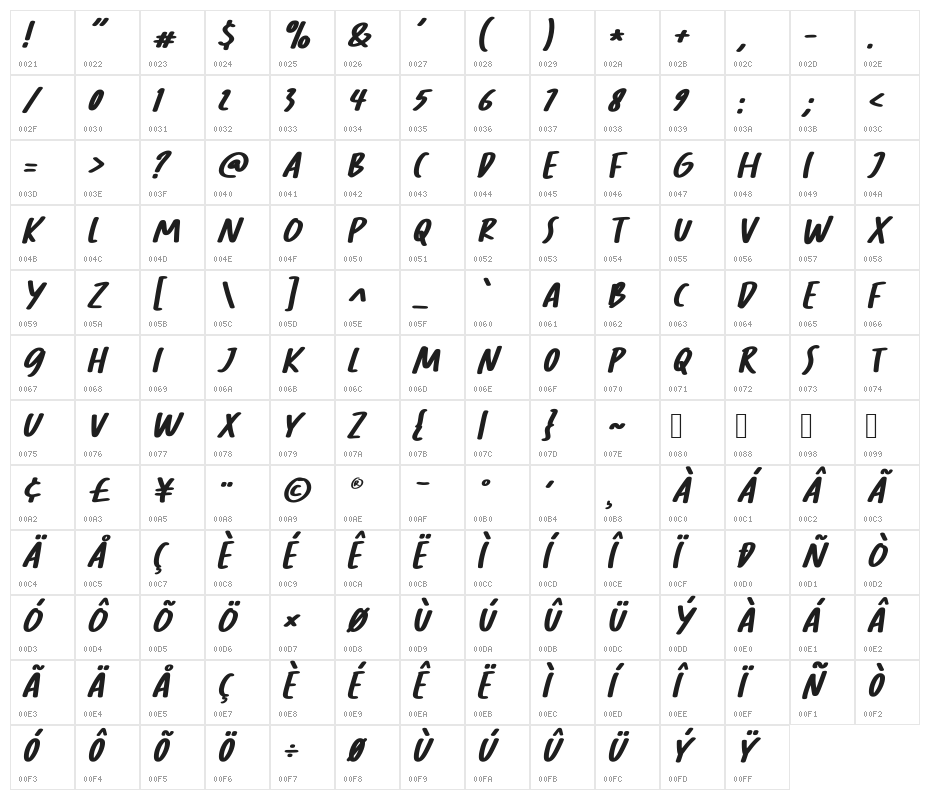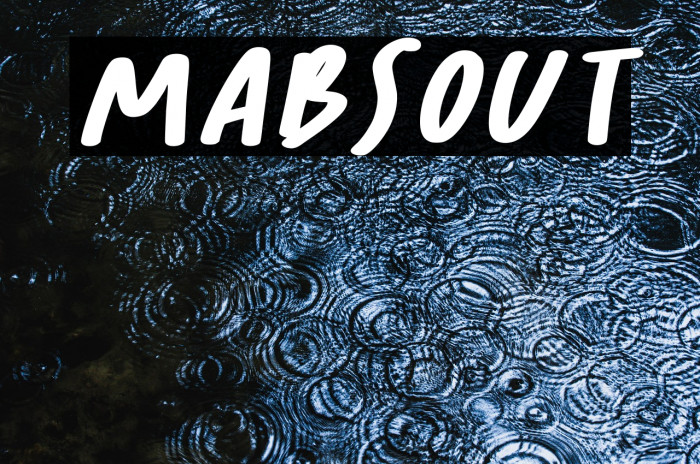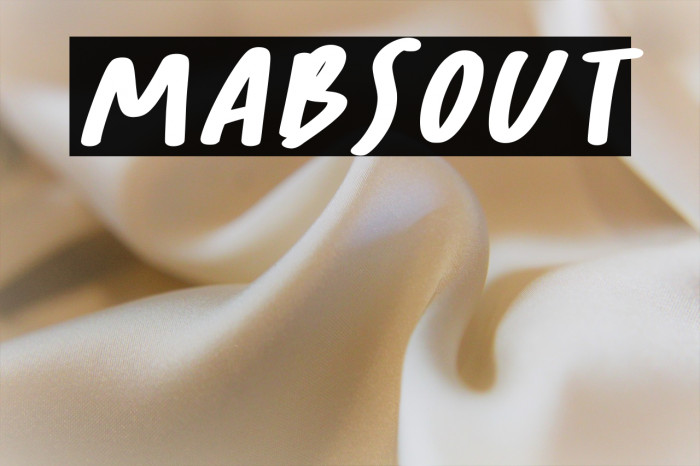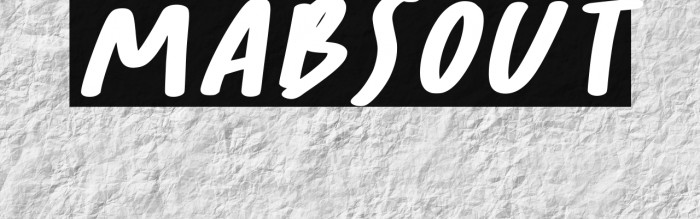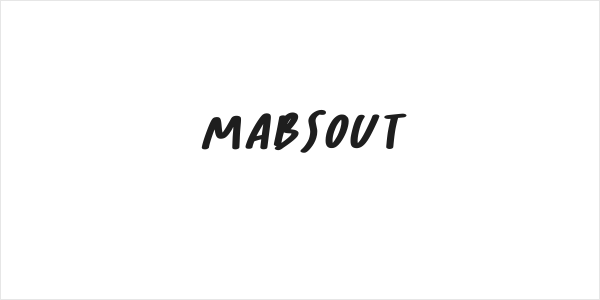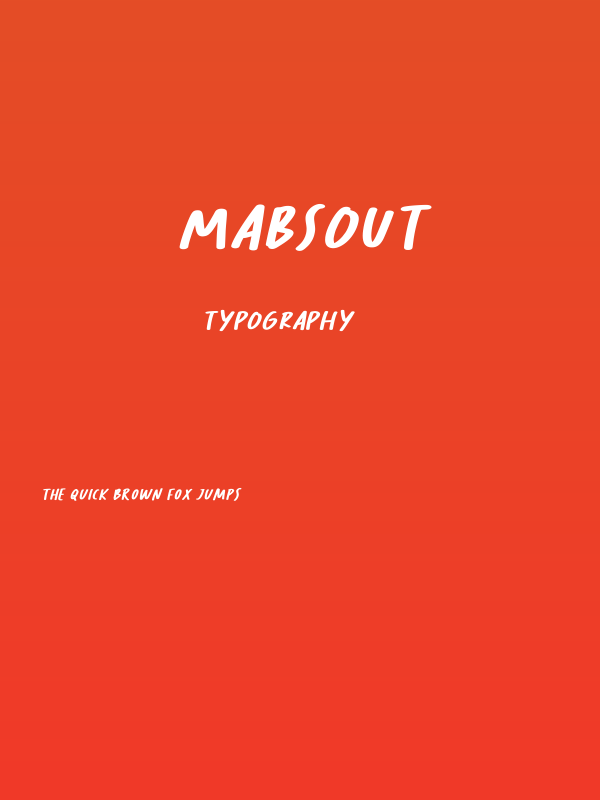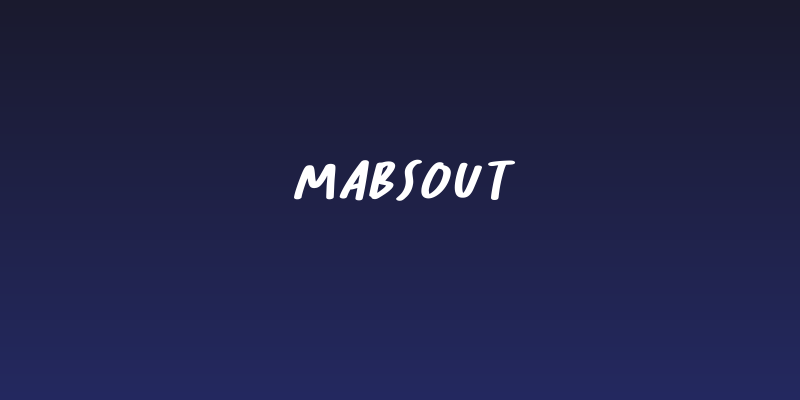
Mabsout Font
Mabsout Description
This font exudes a lively and dynamic energy, characterized by its bold and flowing script style. The letters are crafted with a smooth, continuous stroke that mimics the fluidity of handwriting. Each character is slightly slanted, adding a sense of motion and informality. The uppercase and lowercase letters maintain a consistent style, with rounded edges and a playful appearance. The numbers and special characters are equally expressive, maintaining the font's cohesive look. This font is perfect for projects that require a personal touch, such as invitations, greeting cards, or branding materials that aim to convey warmth and approachability.
| Proposed Projects | Ideal for invitations, greeting cards, personal branding, and any project needing a warm, personal touch. |